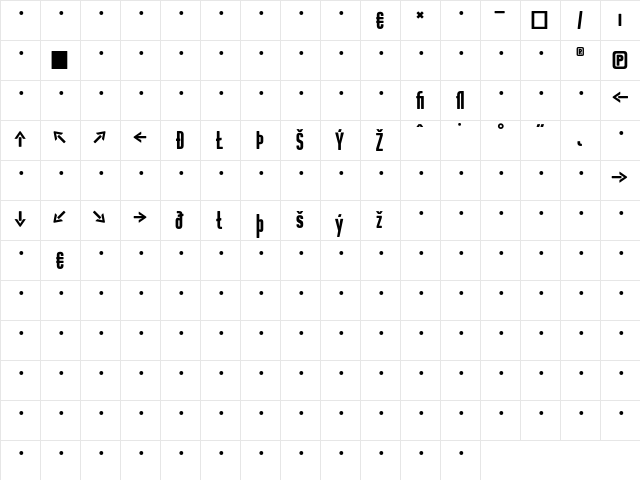
CstBerlinEast BoldExp
Design Context for CstBerlinEast Typeface
CstBerlinEast offers clean, dependable letterforms without strong stylistic allegiance, making it a practical choice for designers who need flexibility. The heavy weight commands attention and anchors typographic hierarchies.